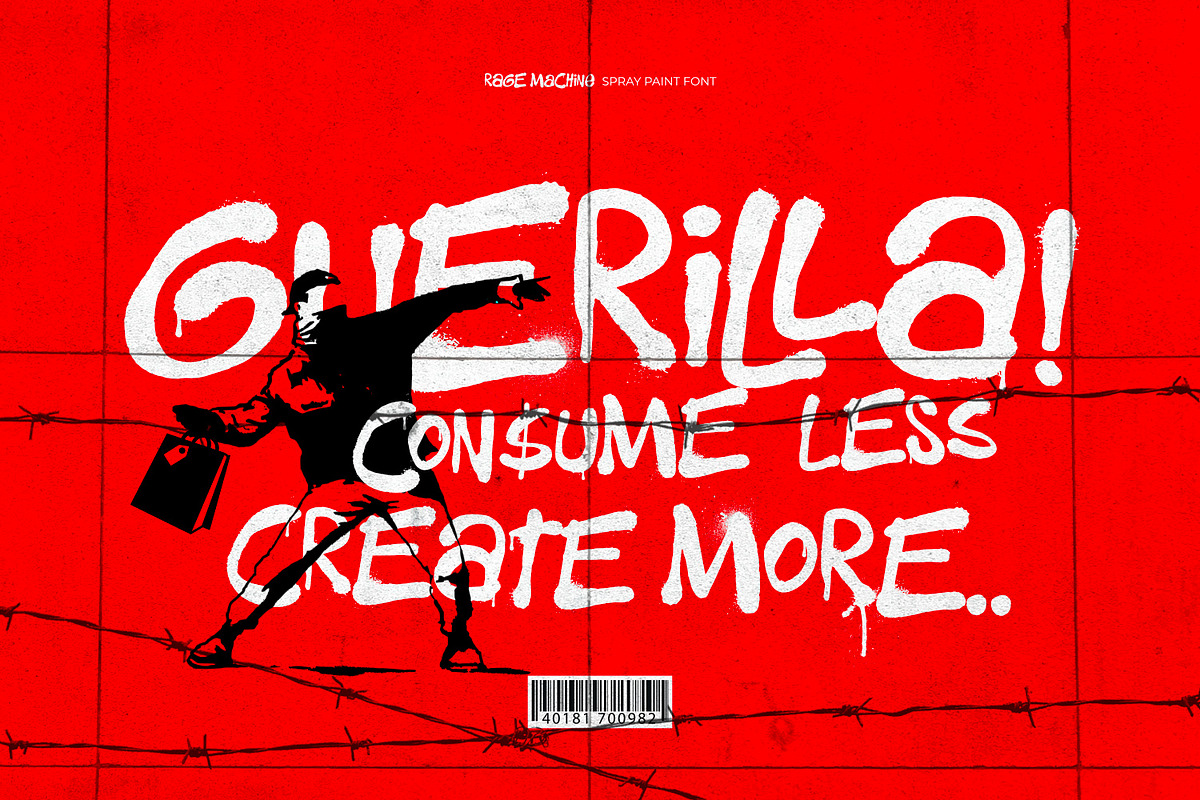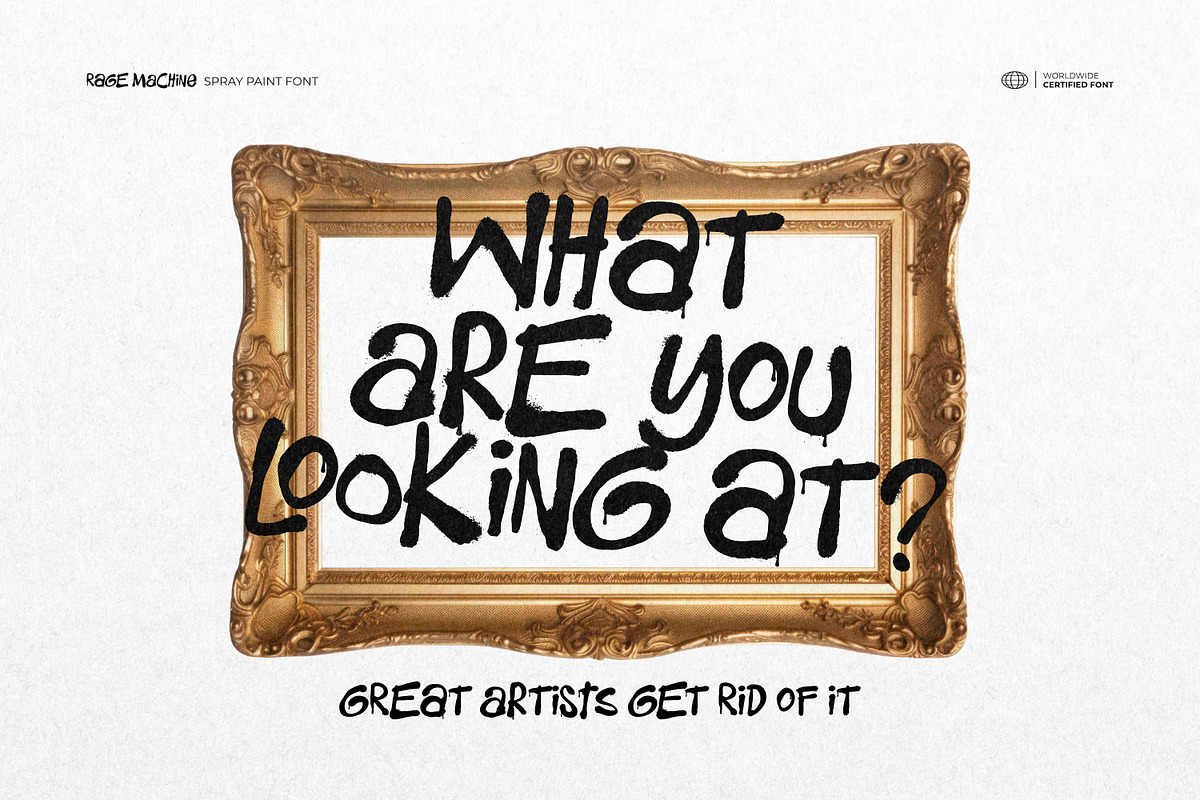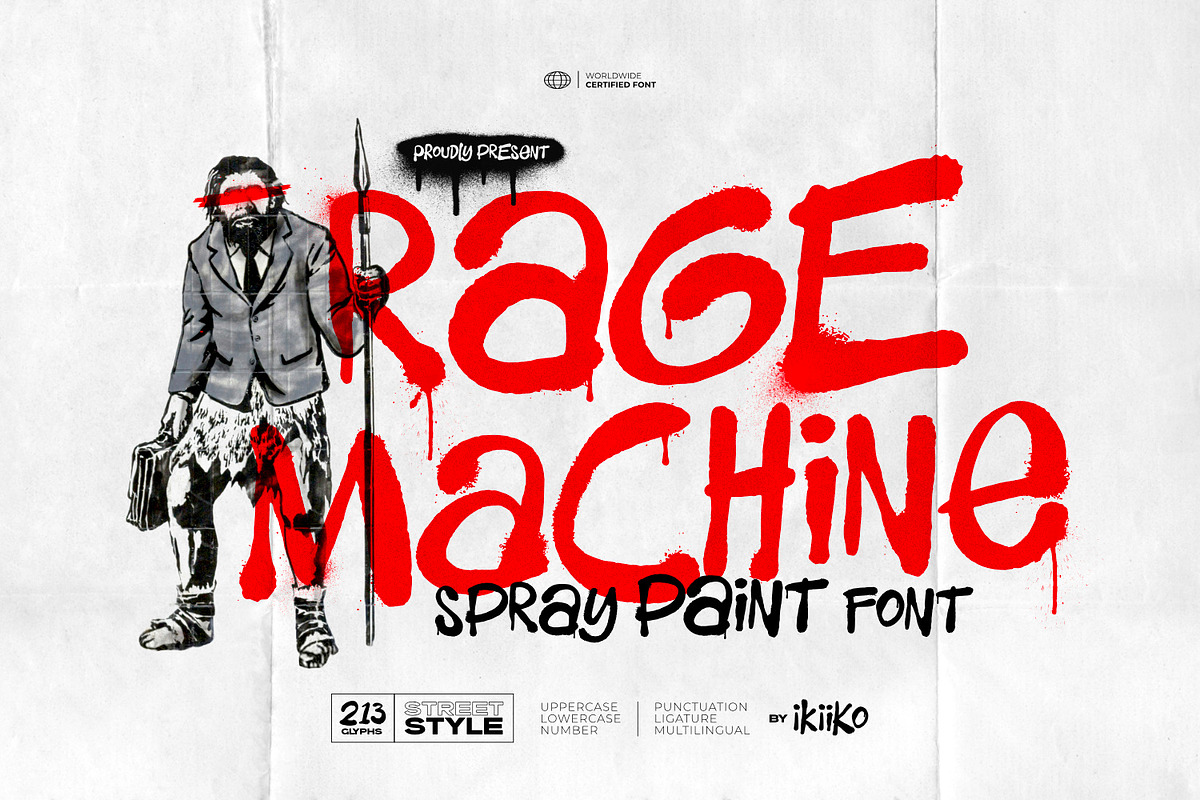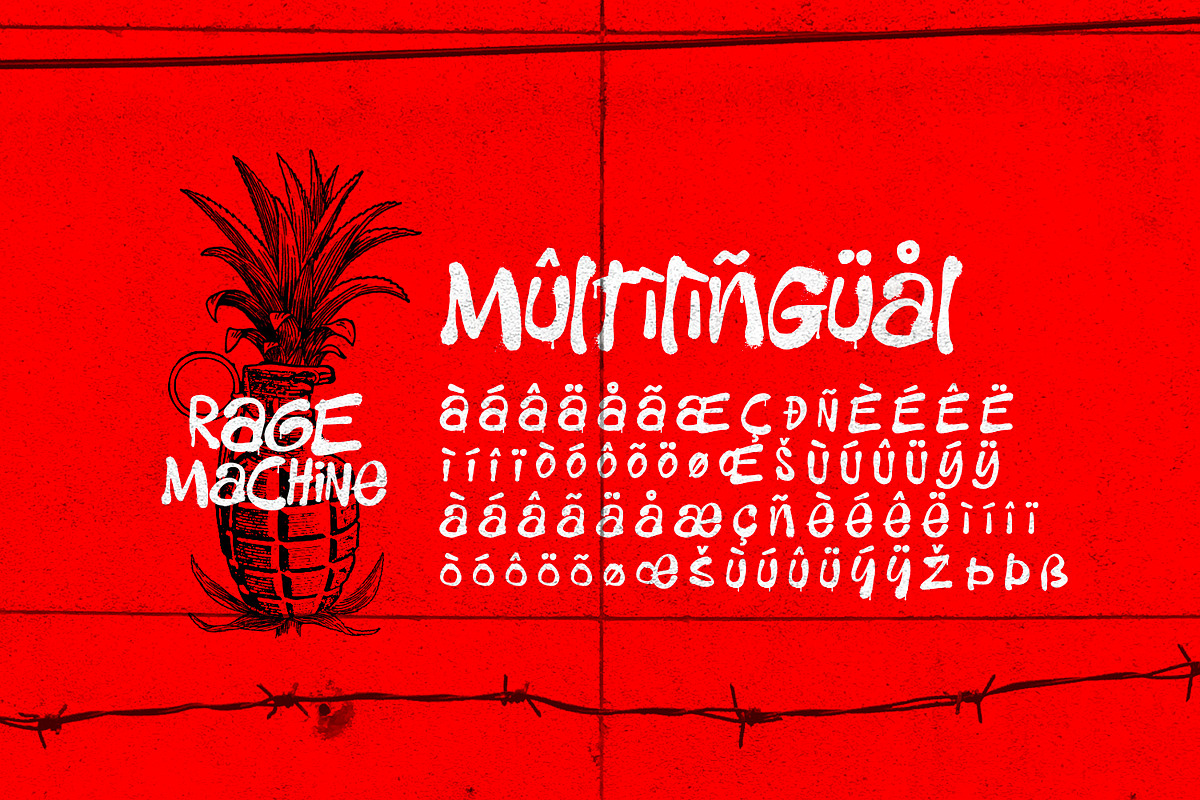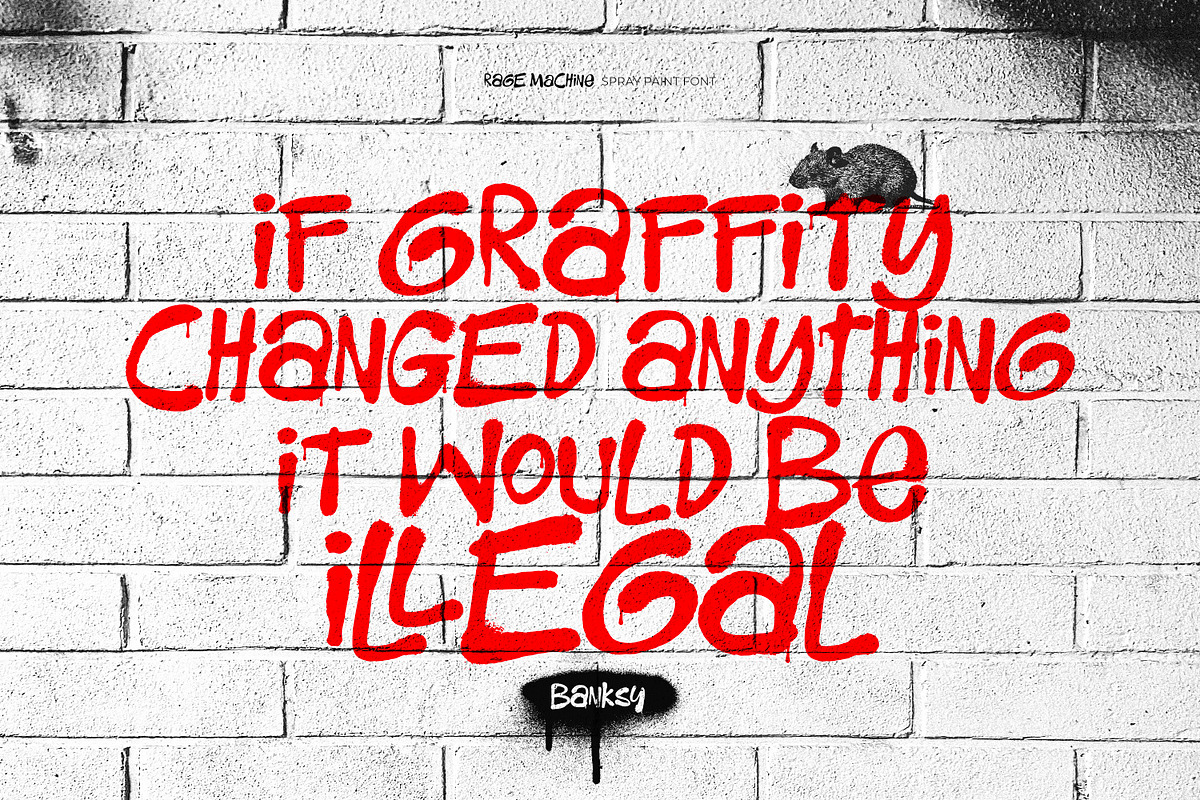
Rage Machine - Spray Paint Font
Proudly present Rage Machine - Spray Paint Font, created by ikiiko.
Rage Machine is a bold, hand-drawn spray paint font that channels the unfiltered energy of graffiti art into your designs. Carefully crafted to replicate the raw, organic strokes of real street art, this font captures the spirit of the urban landscape, where creativity knows no bounds. Inspired by the rebellious essence of street culture, Rage Machine reflects the freedom, individuality, and daring expression that graffiti represents.
Its rugged, spray-like texture perfectly mirrors the look of paint sprayed onto brick walls, alleyways, and cityscapes, evoking the gritty, unapologetic energy of the streets. Rage Machine isn’t just a font—it’s a statement. Use it to amplify your message of freedom, rebellion, and urban artistry, bringing a dynamic and authentic graffiti vibe to your work.